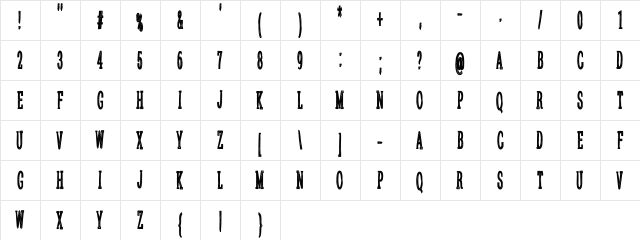
Sanek Regular
Foundry: Iordanis Passas
Designer: Iordanis Passas
Design Context for Sanek
Sanek is a composed and adaptable typeface that performs quietly and consistently across a wide range of design contexts.